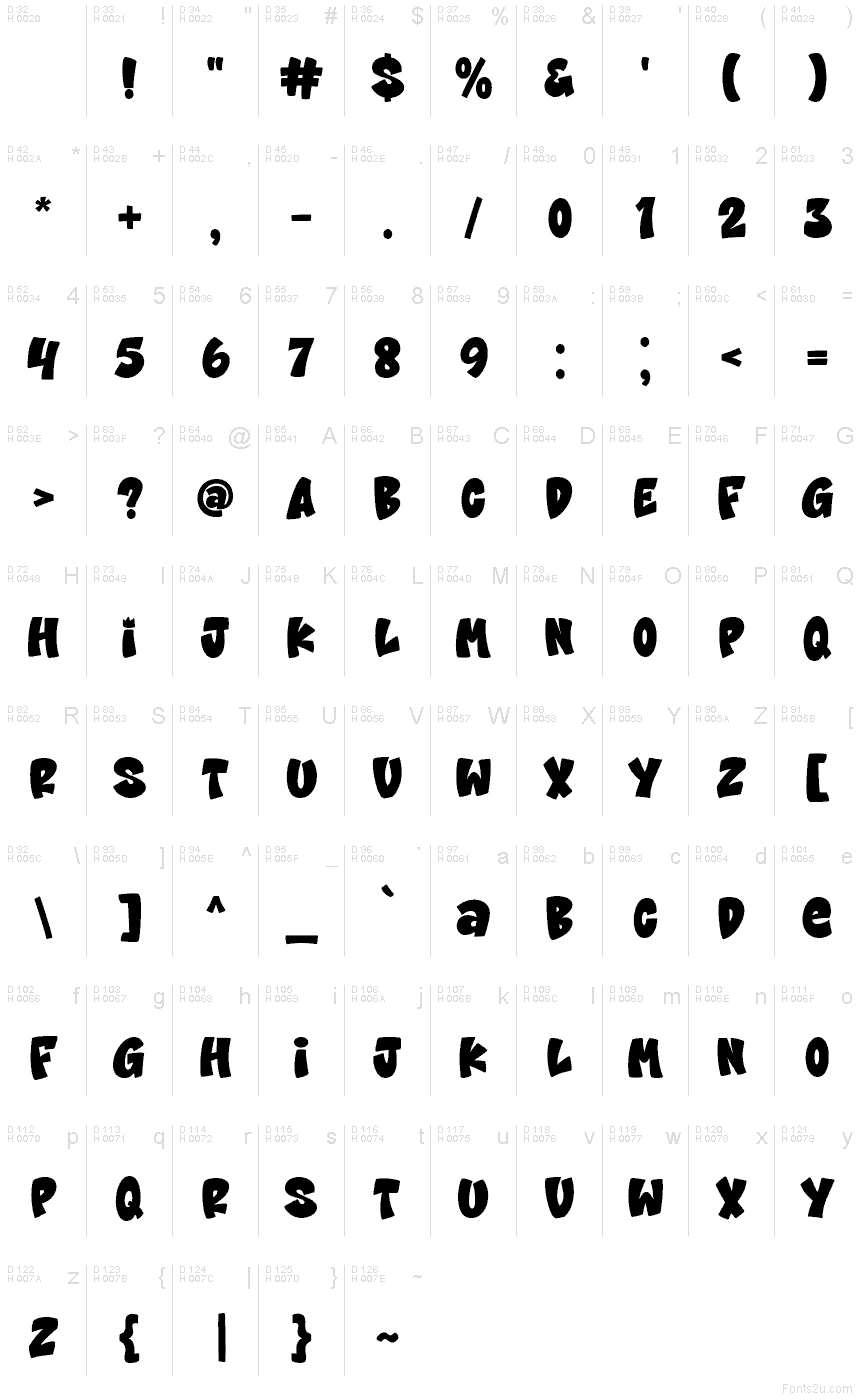
Super Crown
Super Crown font by fsuarez913 is a bold display cartoon font with a bubbly look. Its thick exaggerated outlines which get inside the letter forms make for an amusing and fun show. Strong and captivating, the typeface will instantly draw the attention of audiences viewing it.